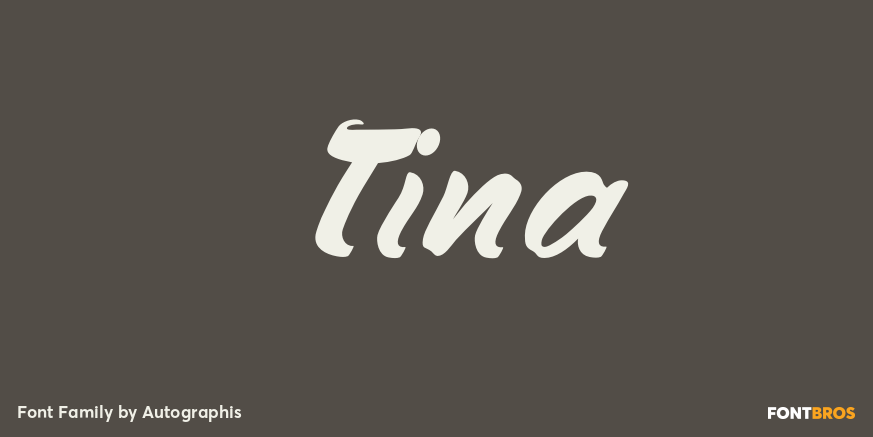
HomeFont BrosRetro (1936-1965)Tina Retro (1936-1965)Scripts: Casual Tina FacebookXPinterestWhatsApp 1 of 1 About Tina Tina is another powerful script designed in the style of the classic forties and fifties American advertising fonts.  DOWNLOAD ON FONT BROSThis font is sold and delivered by Font Bros. Font Canyon may earn a commission if you buy through this link. People also explored Swizzer Font Butter New Font Thank Font Deloiré Font Bottle Font Antonia Retro Children Font Annchi Font Cinderella 394 0 TagsTinaTina Font Previous articleValentinNext articleVan den Velde Script Pro LEAVE A REPLY Cancel reply Comment: Please enter your comment! Name:* Please enter your name here Email:* You have entered an incorrect email address! Please enter your email address here Website: Save my name, email, and website in this browser for the next time I comment. Personal Use Free Shawaki Personal Use Free Read more about this font Saolice Personal Use Free Read more about this font Black Jalal Personal Use Free Read more about this font Coffete Personal Use Free Read more about this font BLOG How to Install and Use Fonts on Windows, macOS, and Web Projects How to Install and Use Fonts on Windows, macOS, and Web Projects Fonts are a crucial part of design and branding. Whether you’re designing a... Elegant Wedding Invitation Fonts – Handwritten & Script Fonts Free Fonts Risk: Why Free Fonts Can Be Dangerous for Designers How to Cut Any Font on Cricut: Convert a Font to SVG (Free)